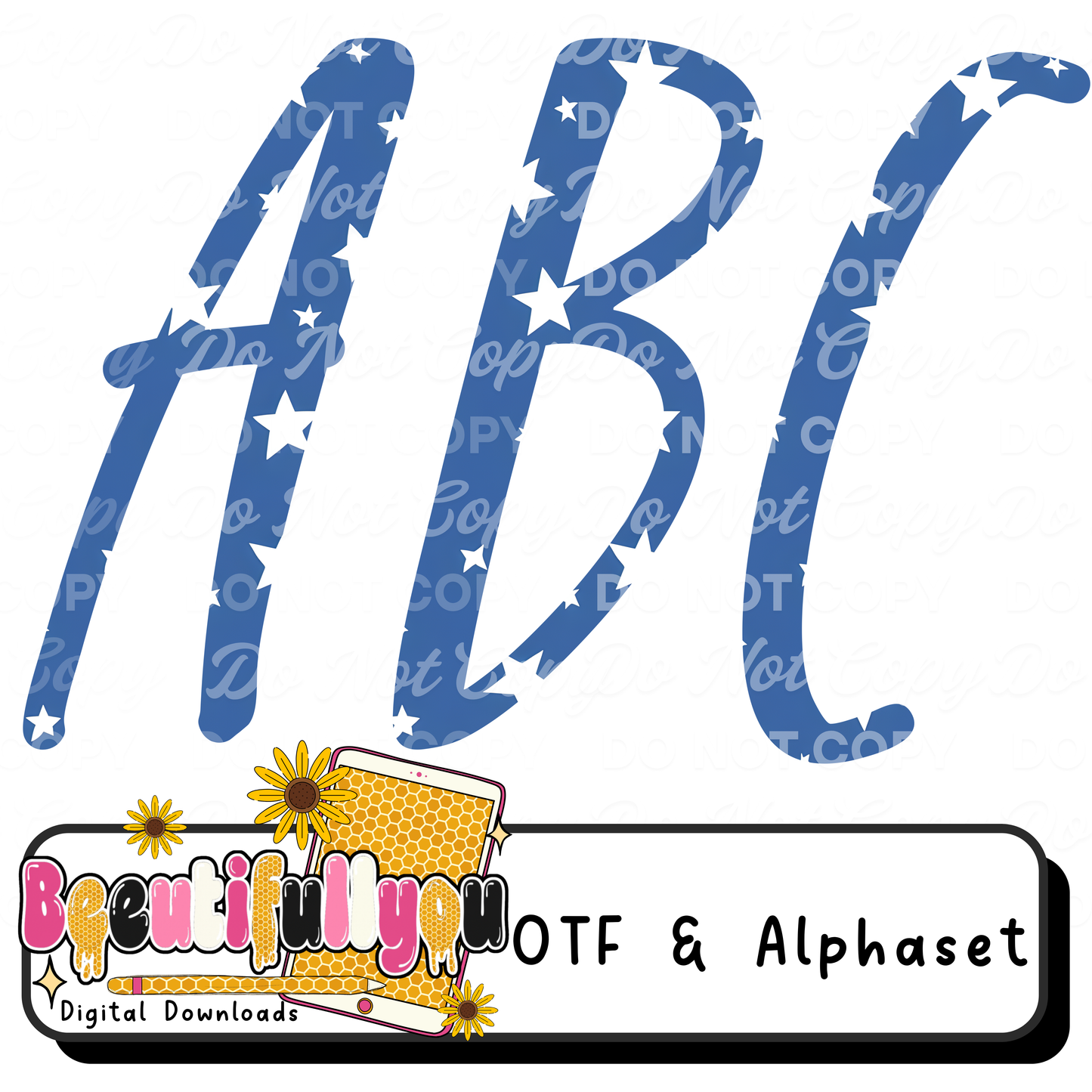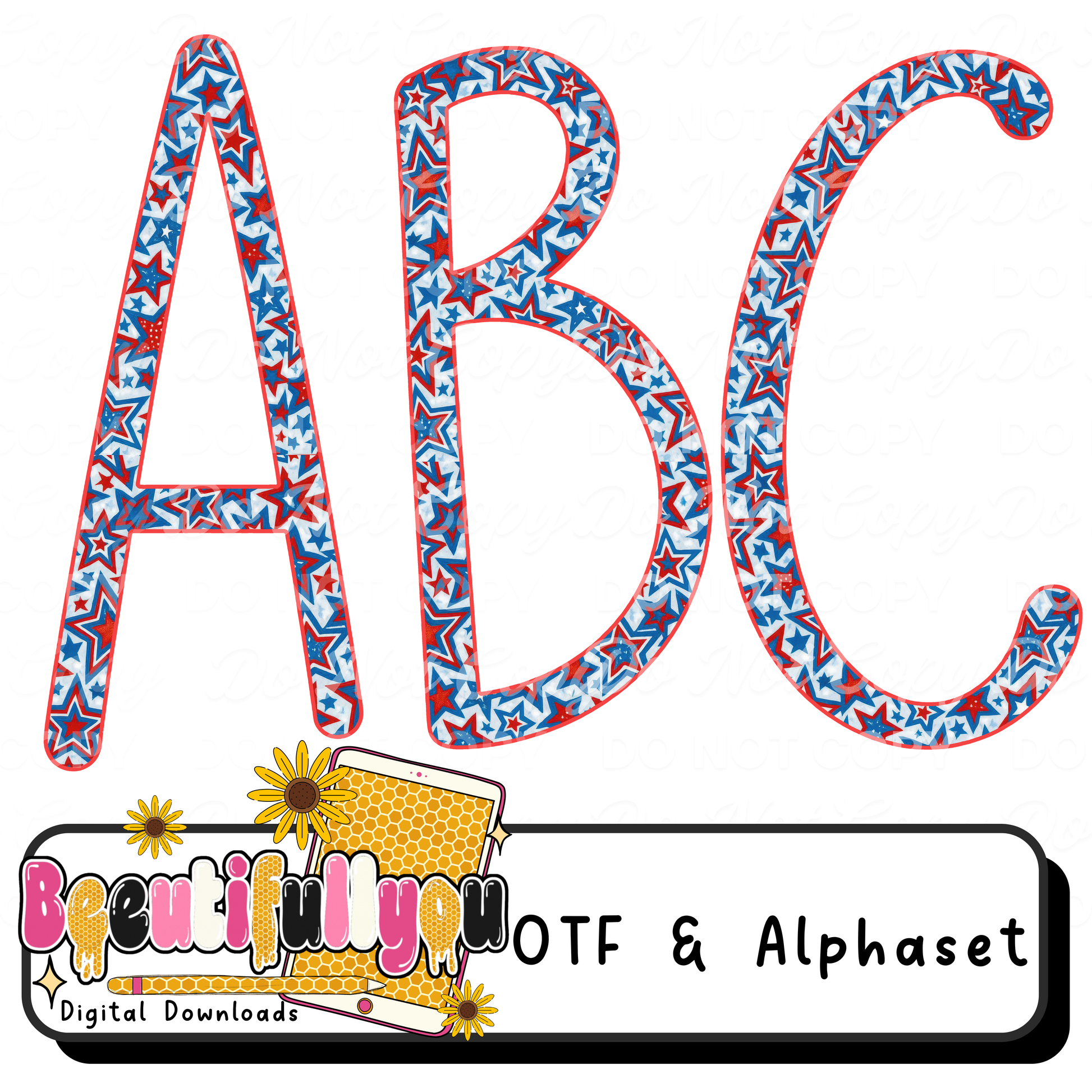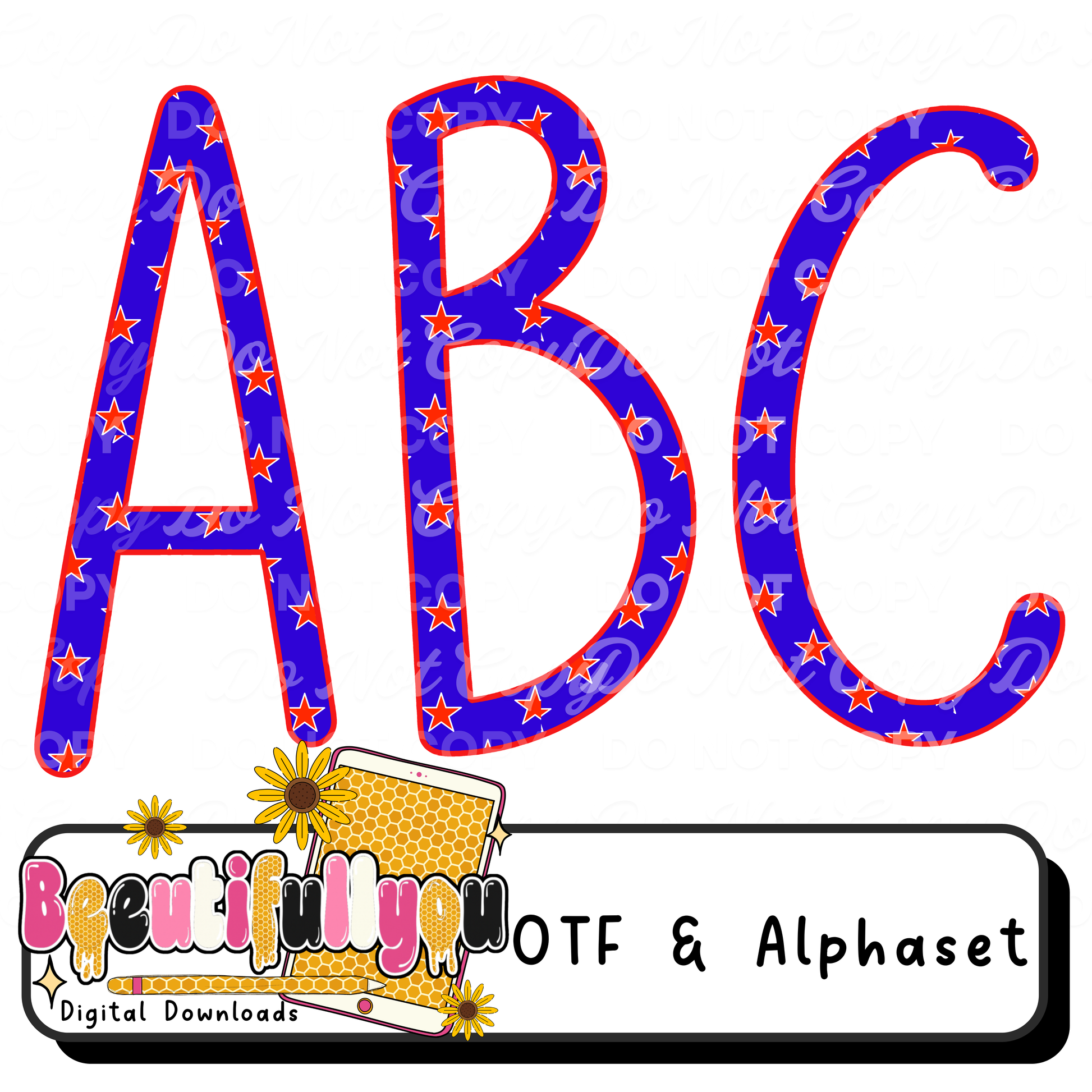
Patriotic Font Bundle OTF + PNG | 4 USA Alphabet Fonts | Red White Blue Letter Set | 4th of July Design Fonts for Shirts & Crafts
🇺🇸✨ The ultimate patriotic font bundle for your designs!
This bundle includes 4 unique USA-themed alphabet fonts featuring bold red, white, and blue patterns — perfect for creating eye-catching designs for holidays, boutique apparel, and custom products.
From stars and stripes to playful patterns, these fonts are made to stand out and bring your designs to life 🔥
🖨️ Perfect For
✨ T-Shirt Designs
✨ DTF Transfers
✨ Sublimation Printing
✨ 4th of July Apparel
✨ Custom Names & Monograms
✨ Stickers & Digital Designs